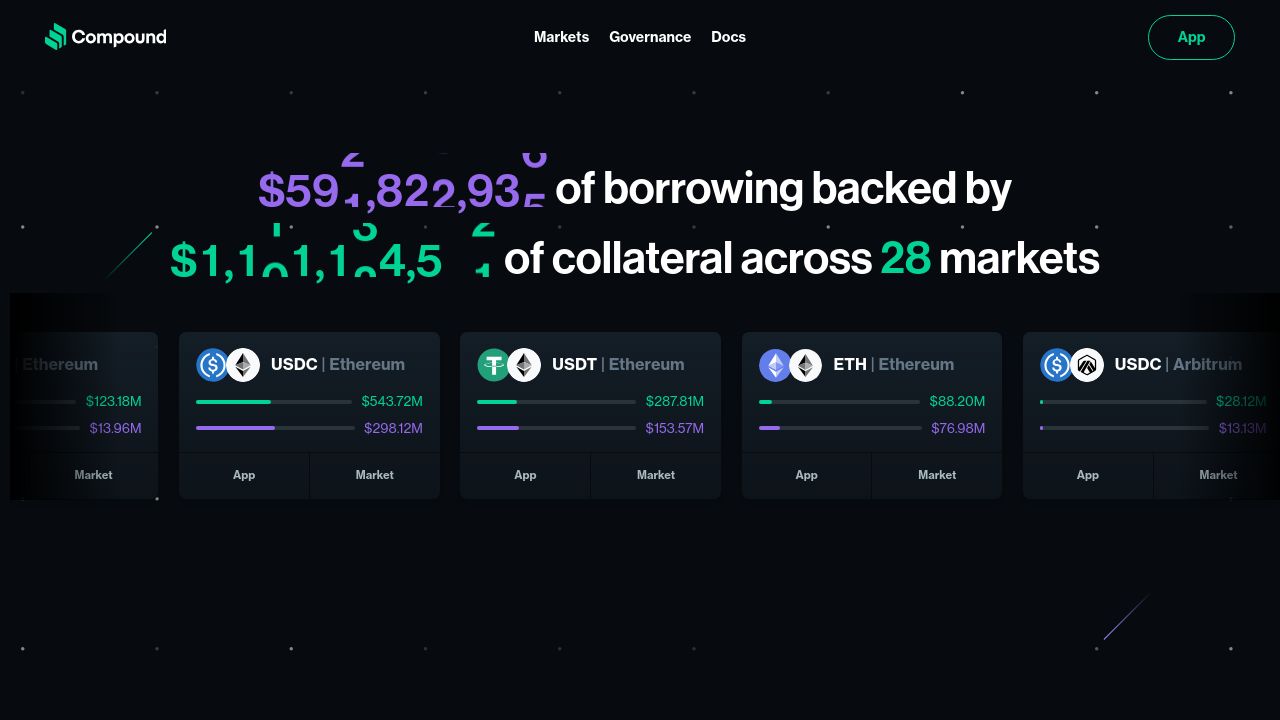
Compound.finance leverages a distinctive typographic approach that aligns with its innovative role in decentralized finance. The primary fonts, Consolas and the custom Haas Grot Disp R and Haas Grot Text R, convey clarity and precision, essential for developers interacting with complex financial systems. These choices not only enhance readability but also reflect the brand's commitment to an algorithmic and autonomous experience. The fallback options, including Monaco and Andale Mono, further ensure a consistent visual identity across various platforms.
The primary fonts used on compound.finance are Consolas, Haas Grot Disp R, and Haas Grot Text R, with Consolas being the system font.
The fonts like Haas Grot Disp R and Haas Grot Text R offer a clean, contemporary look, while Consolas provides excellent legibility for code and technical content, setting them apart from more decorative typefaces.
On compound.finance, Consolas is used in a weight of 400, while both Haas Grot Disp R and Haas Grot Text R are utilized at a weight of 500, providing a balanced visual hierarchy.